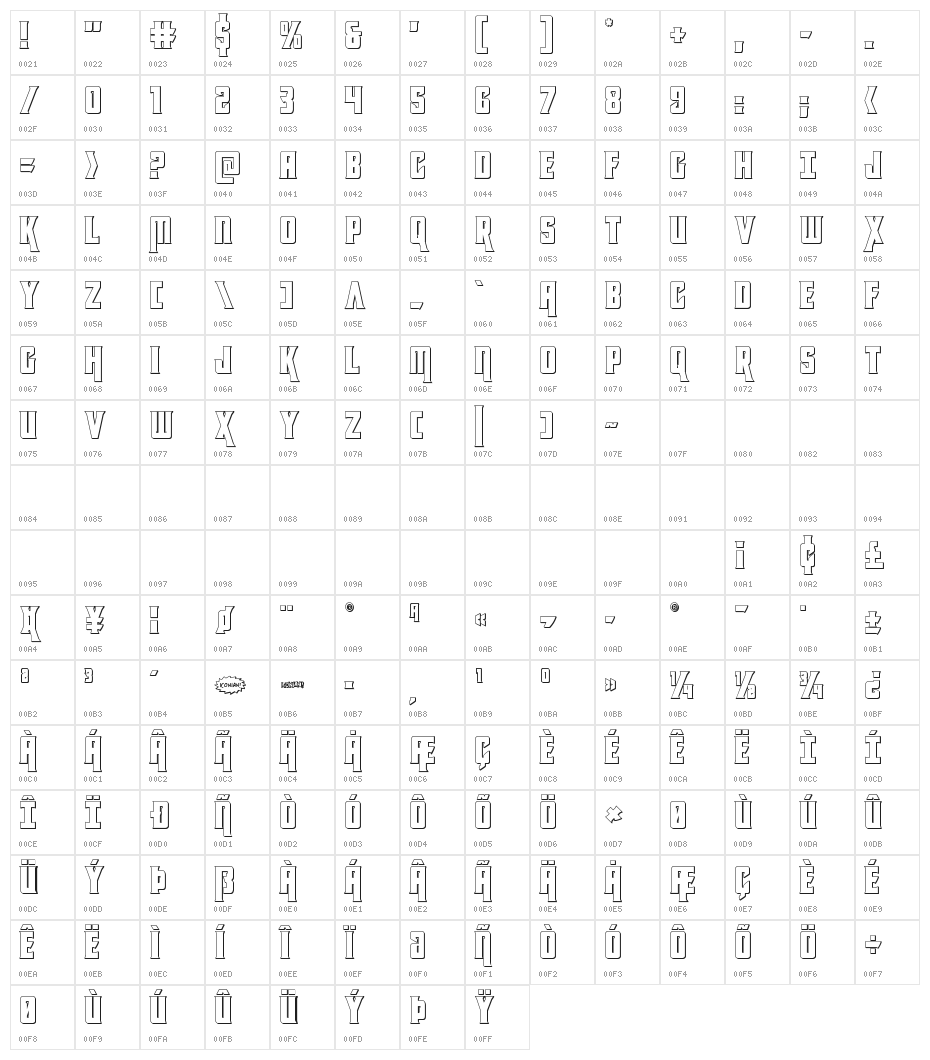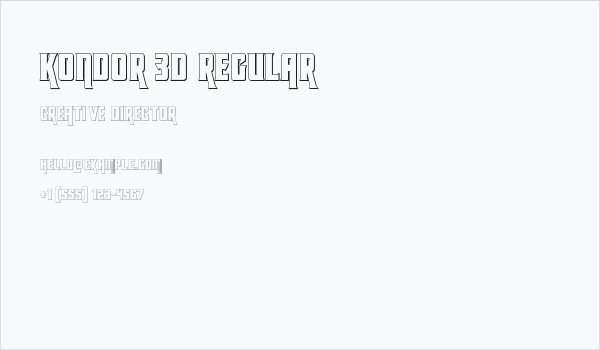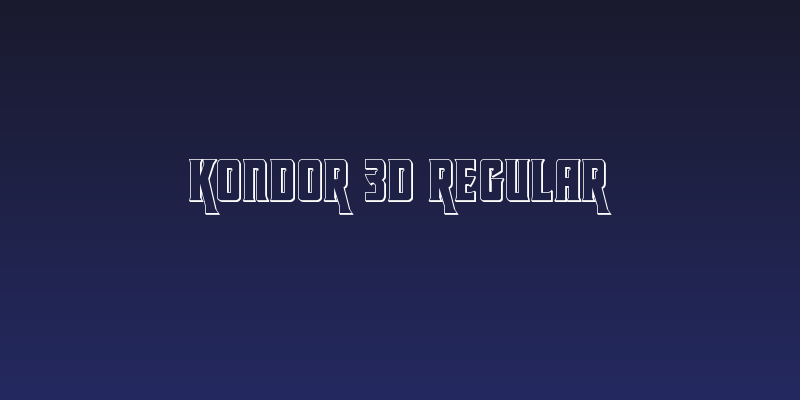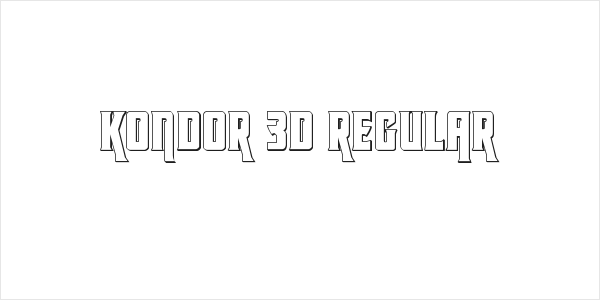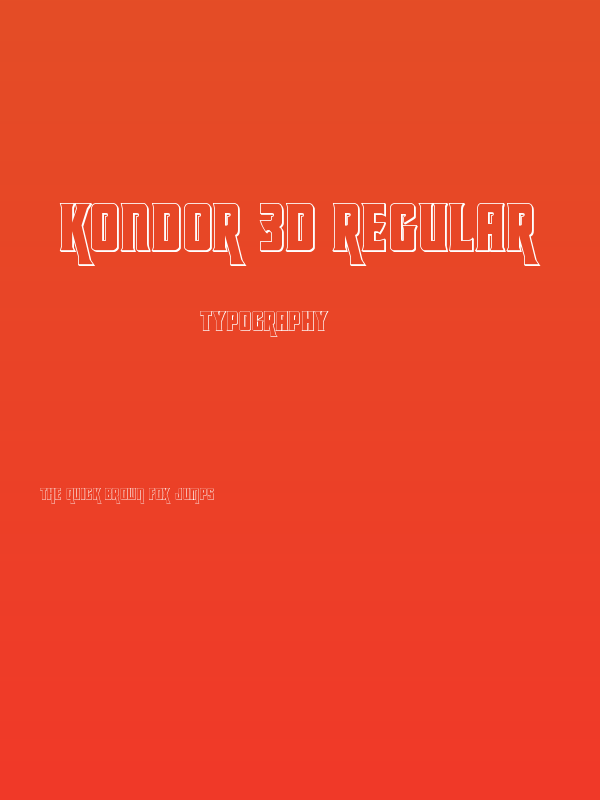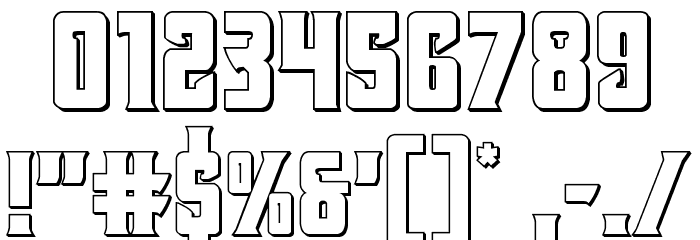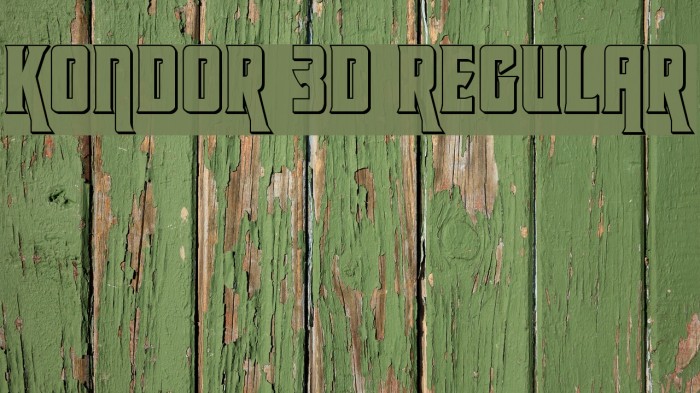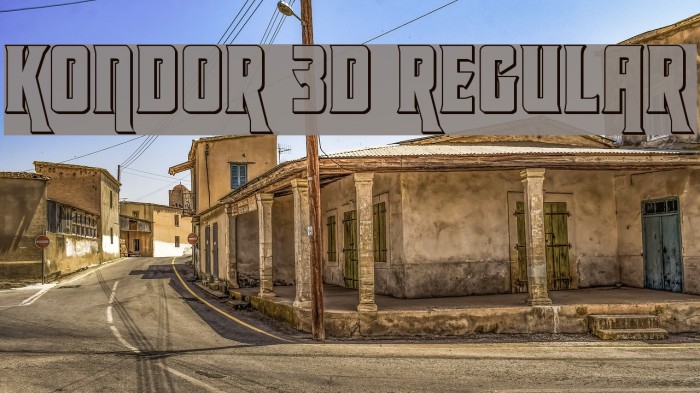
Kondor 3D Regular Font
Kondor 3D Regular Description
This font features a bold, three-dimensional appearance with sharp, angular edges and a distinct outline that gives it a striking, futuristic look. The uppercase letters are tall and imposing, while the lowercase letters maintain a consistent style, offering a cohesive visual impact. The numbers and special characters are designed to match the boldness and angularity of the alphabet, making the font versatile for various uses. Its unique style is both eye-catching and memorable, making it suitable for projects that require a strong visual presence.
| Overall Style | Futuristic, Decorative |
| Proposed Projects | Ideal for video game titles, movie posters, branding for tech companies, and any project needing a bold, futuristic look. |